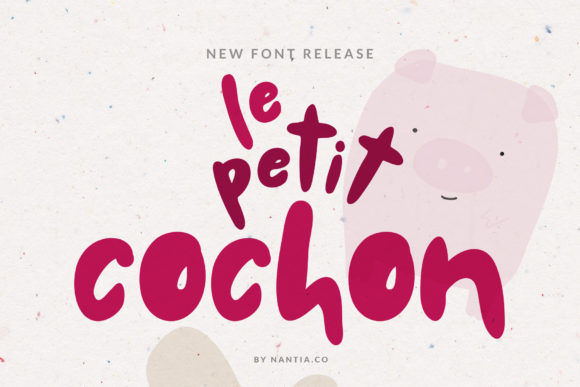
Behold the Le Petit Cochon Font, a charming and plump script font that radiates an aura of whimsical delight and playful exuberance! Crafted with an unparalleled attention to detail, Le Petit Cochon is a masterpiece that dances across the digital canvas, leaving a trail of visual enchantment.
Journey into a world where fonts ignite your imagination and transform your creations into breathtaking works of art. Let Le Petit Cochon be your guiding light, leading you down a path of captivating designs and creative fulfillment.
With its enchanting curves and playful personality, Le Petit Cochon is the perfect choice for adding a touch of whimsy and charm to your projects. Its unique style and unmistakable presence will make your designs stand out from the mundane and ordinary, leaving a lasting impression on all who behold them.
Picture yourself crafting enchanting invitations, where every letter dances in harmony, or designing enchanting posters that capture the essence of pure joy. Imagine creating social media posts that sparkle with wit and creativity, or crafting logos that radiate a sense of playful sophistication.
Le Petit Cochon is a versatile font that lends its magic to a myriad of design endeavors. Whether you're a seasoned graphic designer seeking to elevate your craft, a budding entrepreneur seeking to make a bold statement, or simply an enthusiastic hobbyist with a passion for creative expression, Le Petit Cochon is your perfect companion.
Embrace the magic of Le Petit Cochon and unlock a world of captivating designs. Let your creativity soar, let your imagination run wild, and let this extraordinary font guide you on a journey of artistic discovery. Elevate your designs to new heights of excellence and leave an indelible mark on the hearts and minds of your audience.
Don't settle for ordinary fonts that blend into the background. Embrace the extraordinary with Le Petit Cochon, and let your designs dance with joy and exuberance.